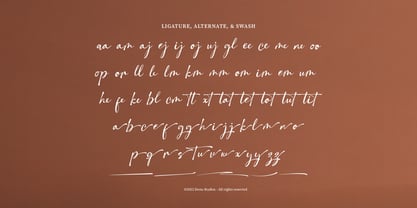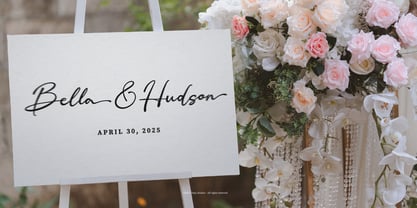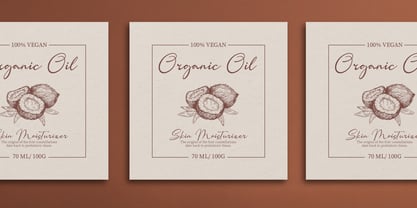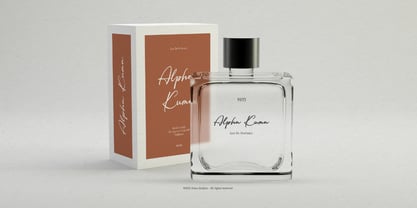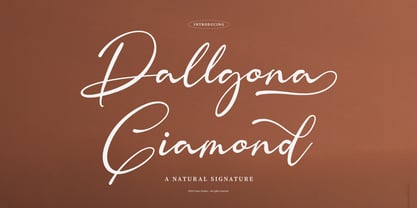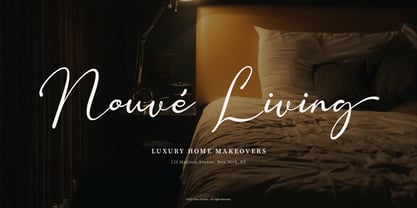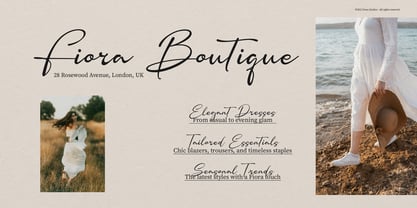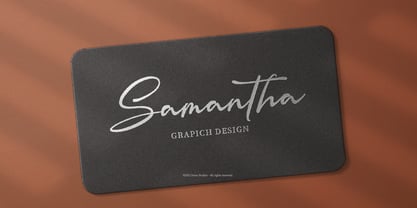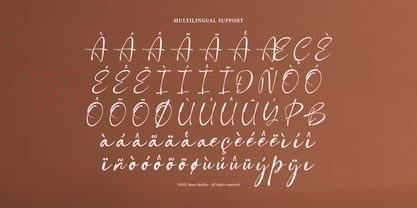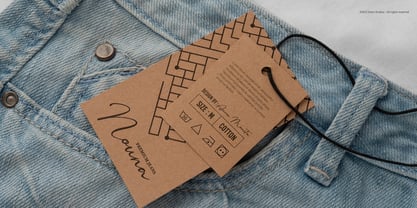
Dallgona Giamond
The Dallgona Giamond Font Family was designed by Dede Nugraha and published by Denustudio. Dallgona Giamond contains 2 styles and family package options. More about this family
Dallgona Giamond | Natural Signature, from Denustudios, suitable for any projects such as: logos, branding projects, homeware designs, product packaging, mugs, quotes, posters, shopping bags, t-shirts, book covers, name card, invitation cards, greeting cards, label, photography, watermark, special events, and all your other lovely projects that need Natural Signature a taste.
• Regular and Italic
• Standard glyphs
• Alternate and Ligature
• Fonts include multilingual support